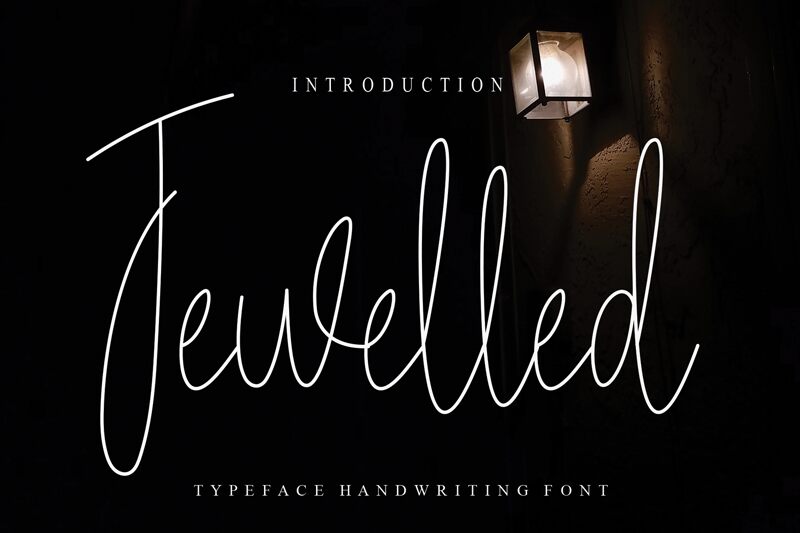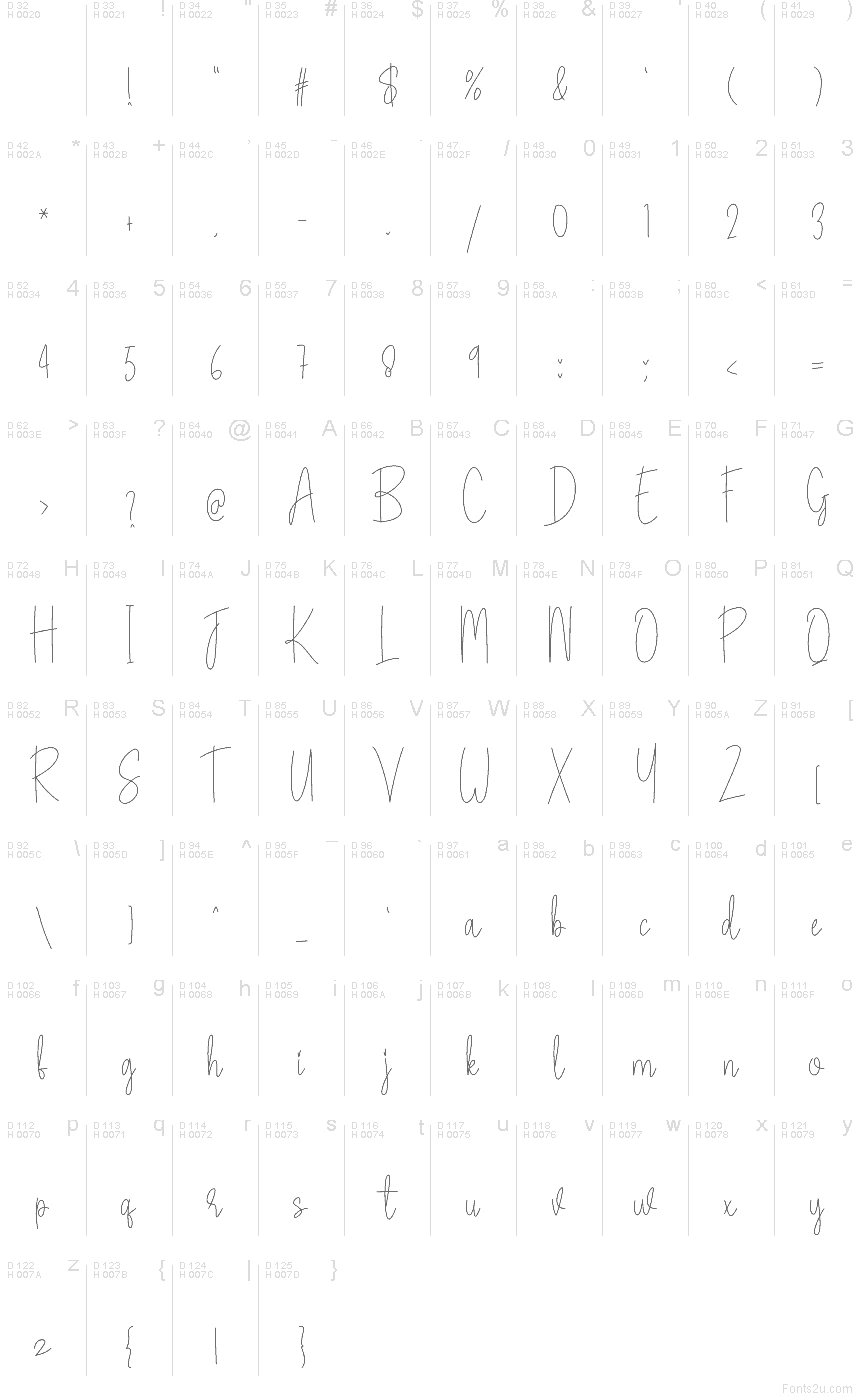
Jewelled
Jewelled font by Scratchones is a free handwritten script typeface that captures the feel of a quick, confident signature. Its long, looping strokes and ultra-fine lines look like ink drawn with a precise pen, giving every word a breezy, personal touch. The letters link in an easy rhythm, so names and short phrases glide across the page with a chic, lightweight elegance.
Using Jewelled, this free font shines on wedding stationery, photography logos, boutique branding, thank-you cards, social media posts, and product packaging where you want a refined “signed by hand” look. It works beautifully as a hero name or short headline paired with a clean sans serif in smaller text. Set it a bit larger than your body copy to keep those airy loops crisp and readable.